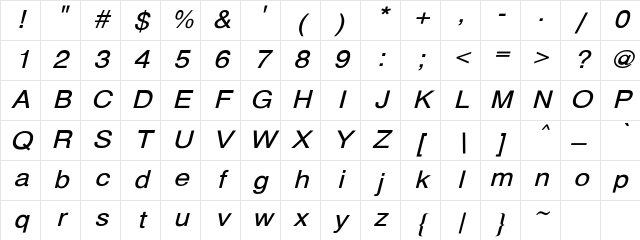
Bern Expanded Oblique 3 is a composed and adaptable typeface that performs quietly and consistently across a wide range of design contexts. The slanted form adds forward momentum and visual energy.
Pro Tip: Use Bern Expanded Oblique 3 for emphasis, pull quotes, and subheadings where its slanted energy can add rhythm to the layout.